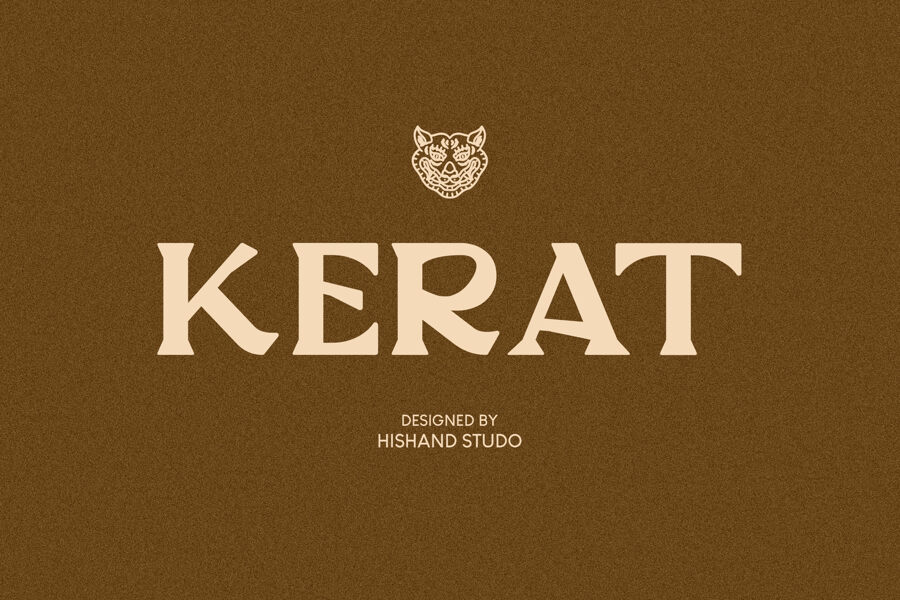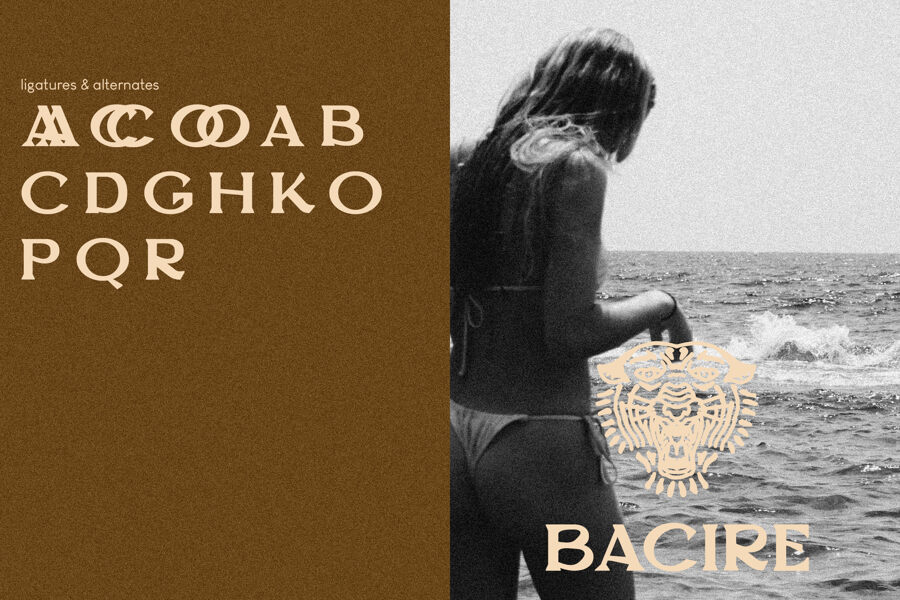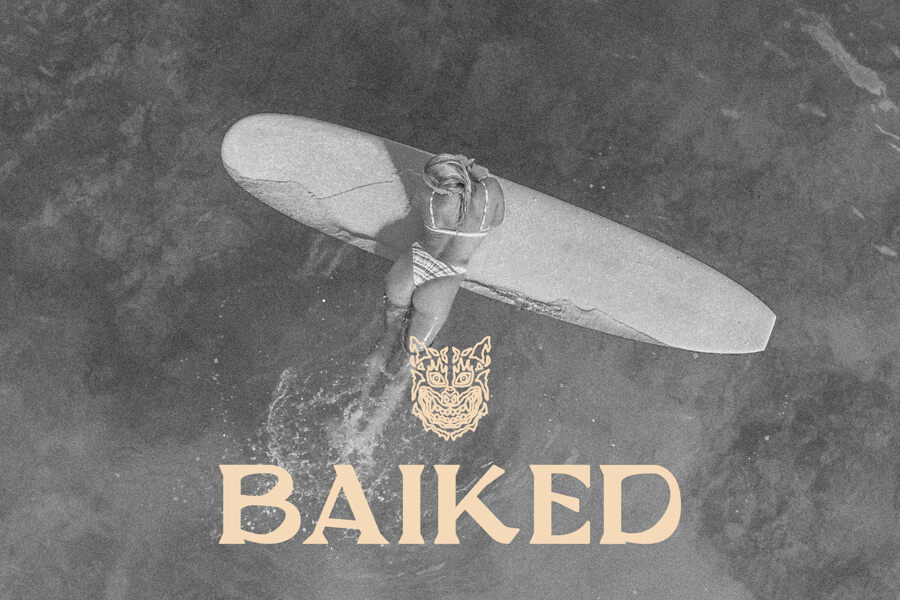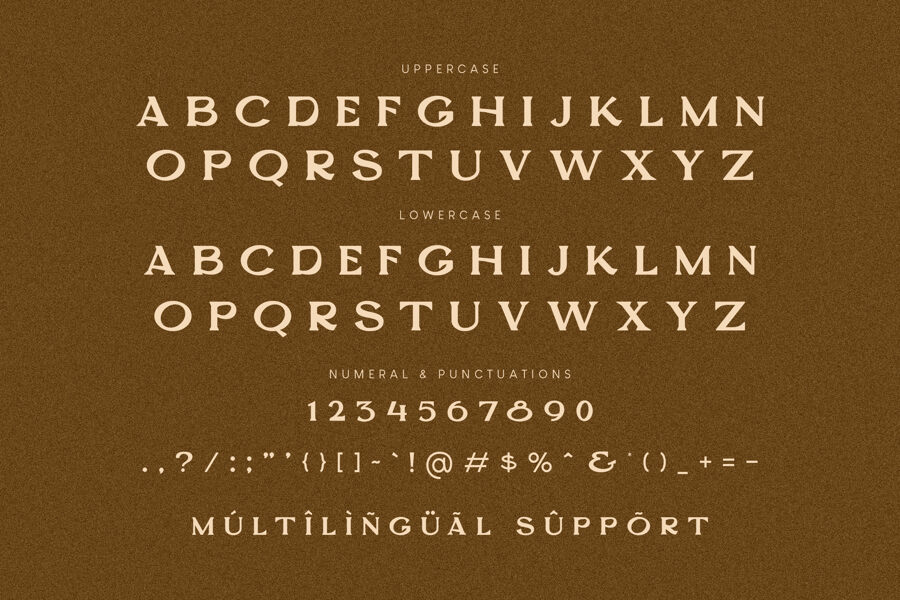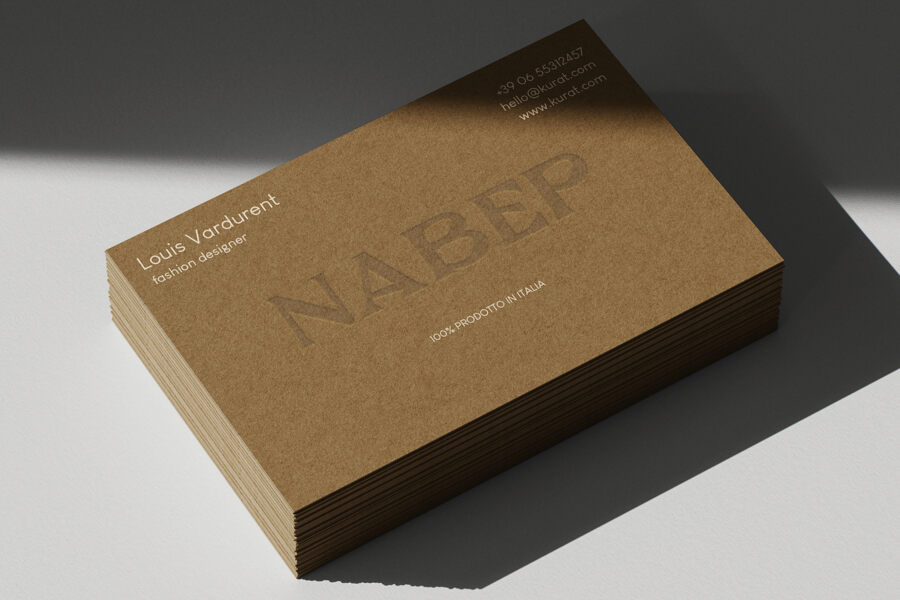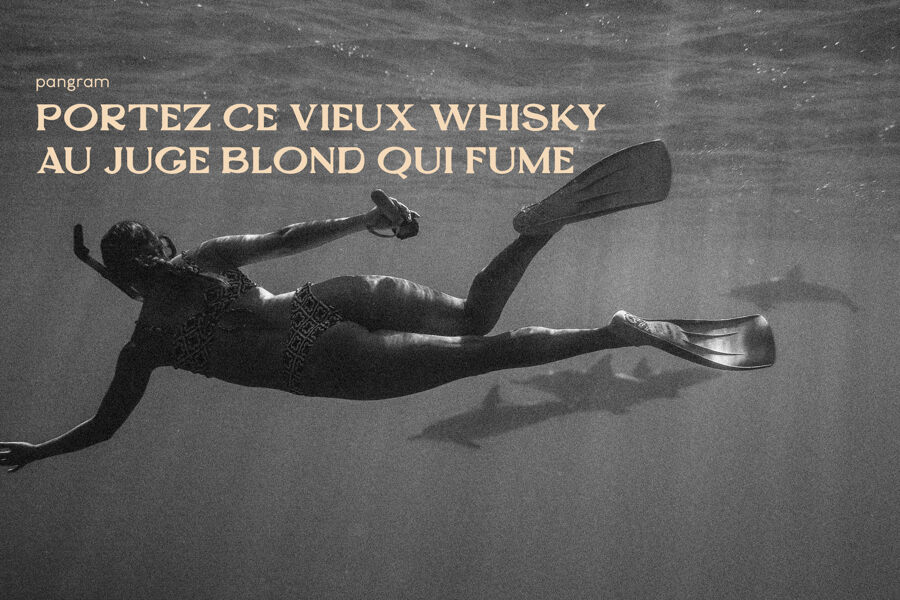
Kerat Font
Kerat is a serif font that blends elegance with warmth. Its design draws from natural textures and rhythms, giving it a refined yet approachable feel.
The font’s subtle curves and gentle serifs create a sense of organic calm, while its structure remains disciplined and clear. This balance makes Kerat perfect for brands seeking a grounded, earthy look, such as wellness and botanical companies, or those wanting a touch of sophistication in their editorial headlines.